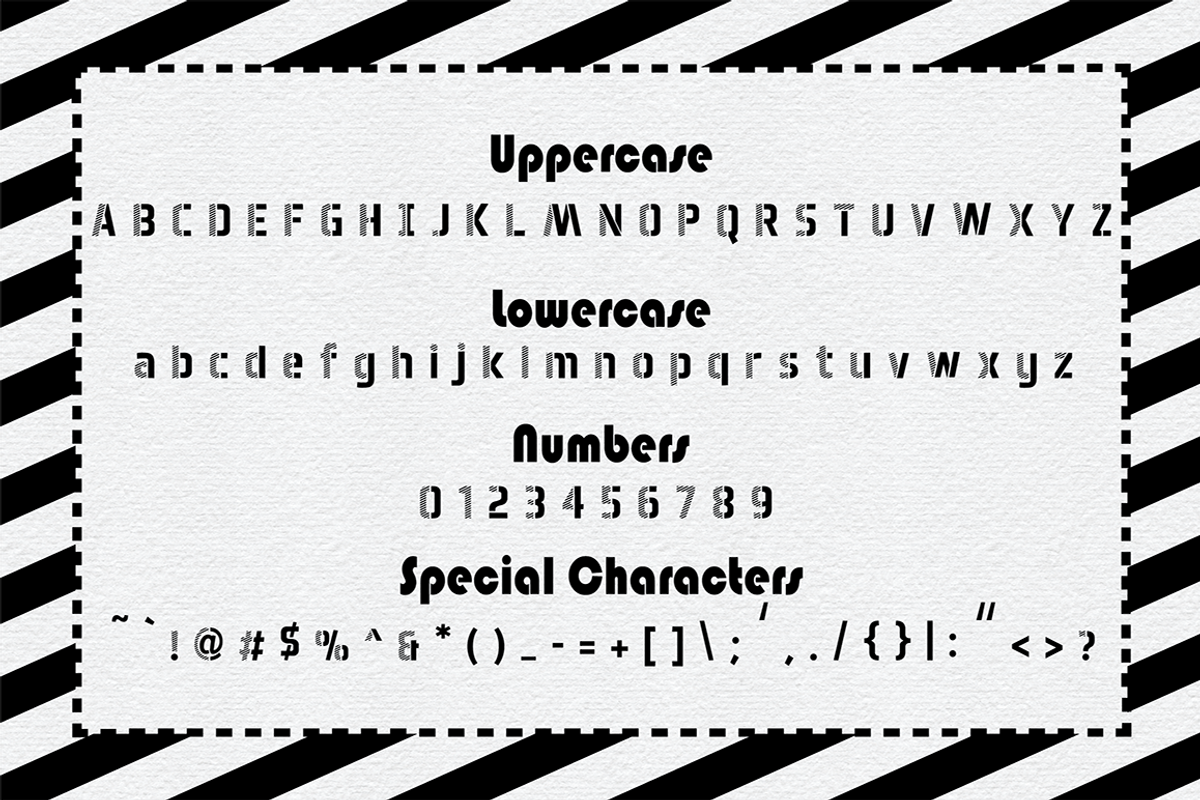
Dashing OTF Font
Dashing OTF Font by Hunt Family Design is a font selected for branding, posters, packaging, typography.
Why Dashing OTF Font is worth a look
Dashing OTF Font by Hunt Family Design fits naturally into Branding, posters, packaging, typography.